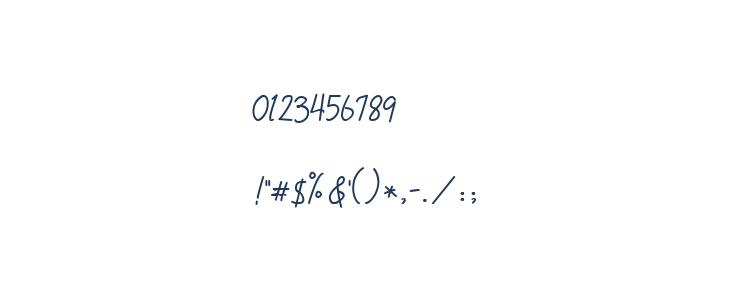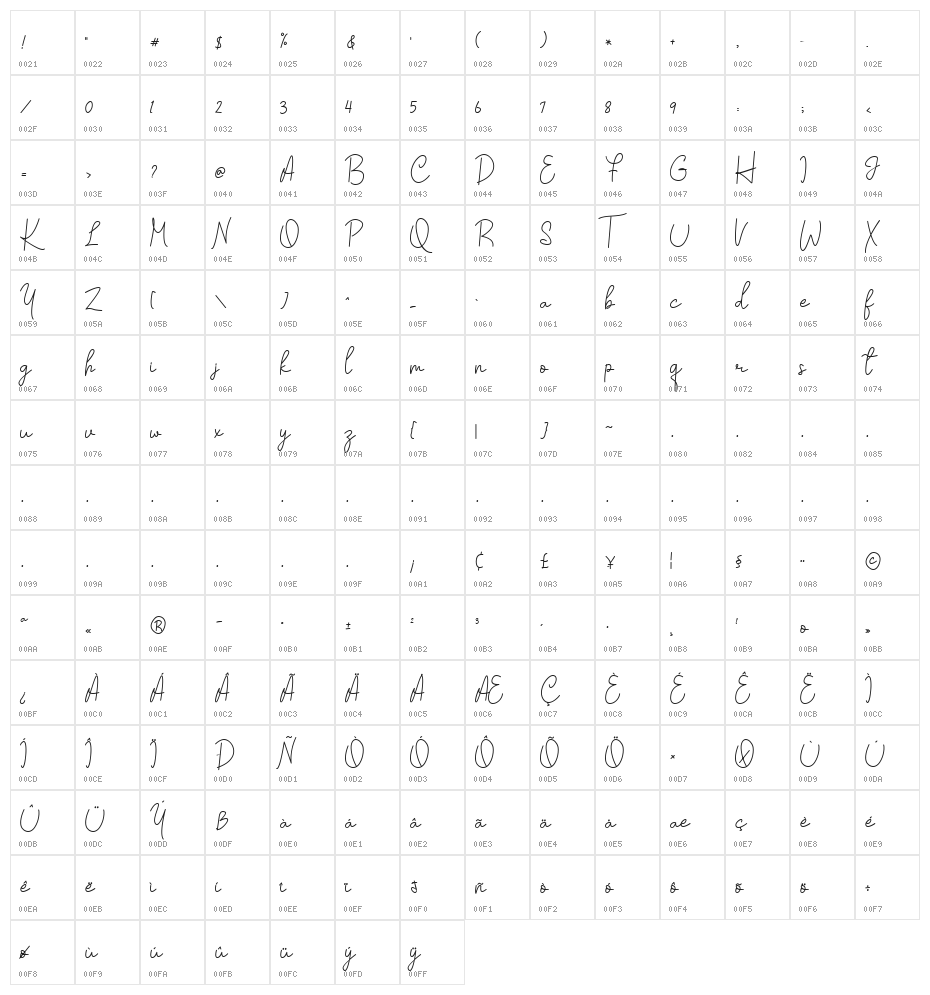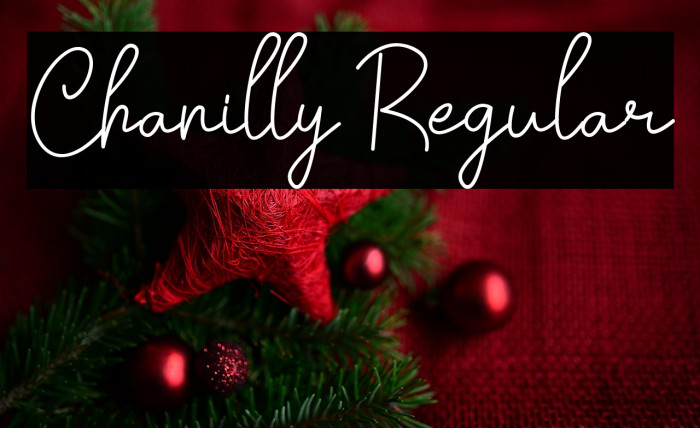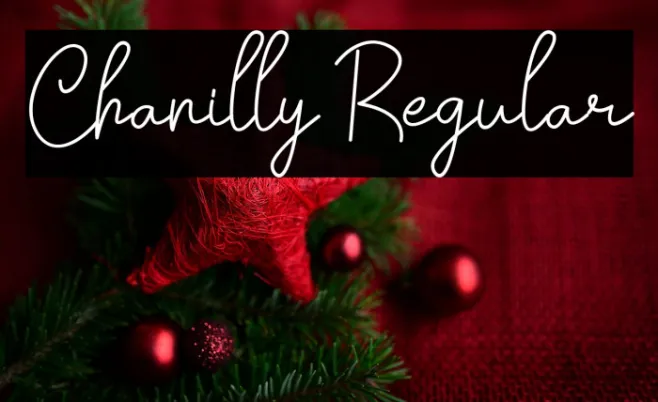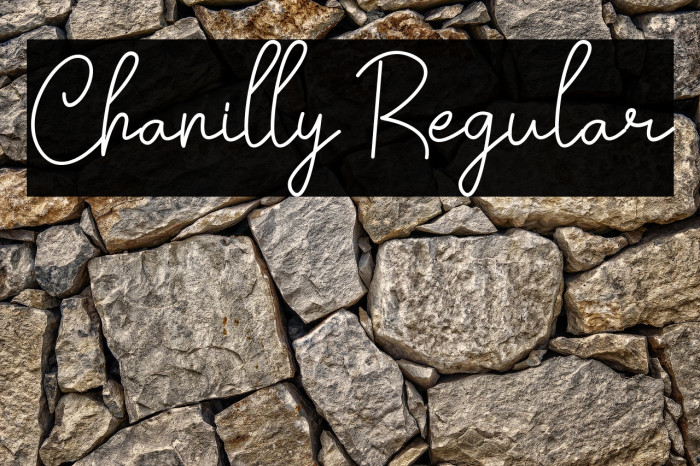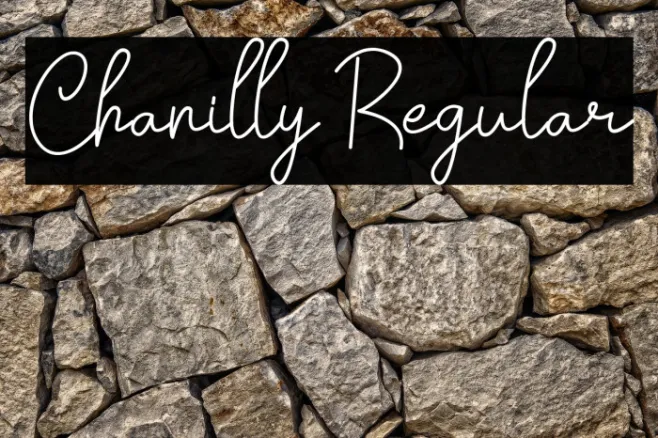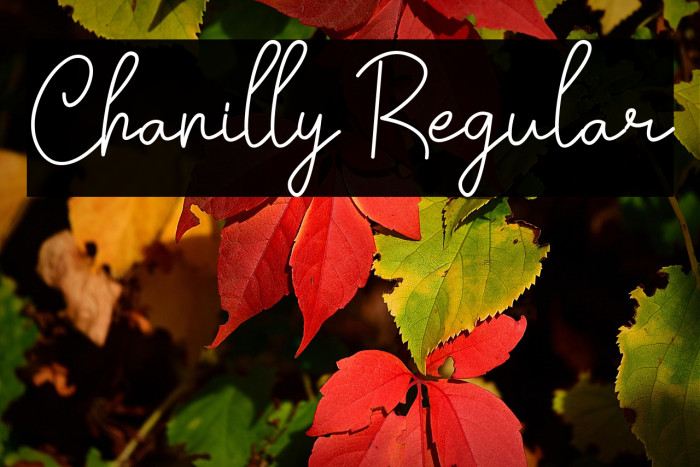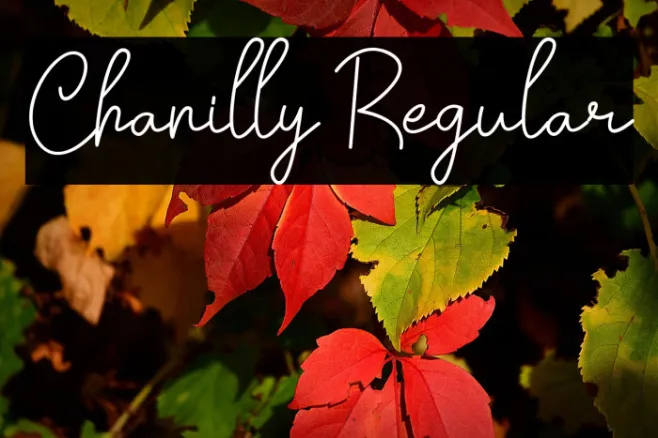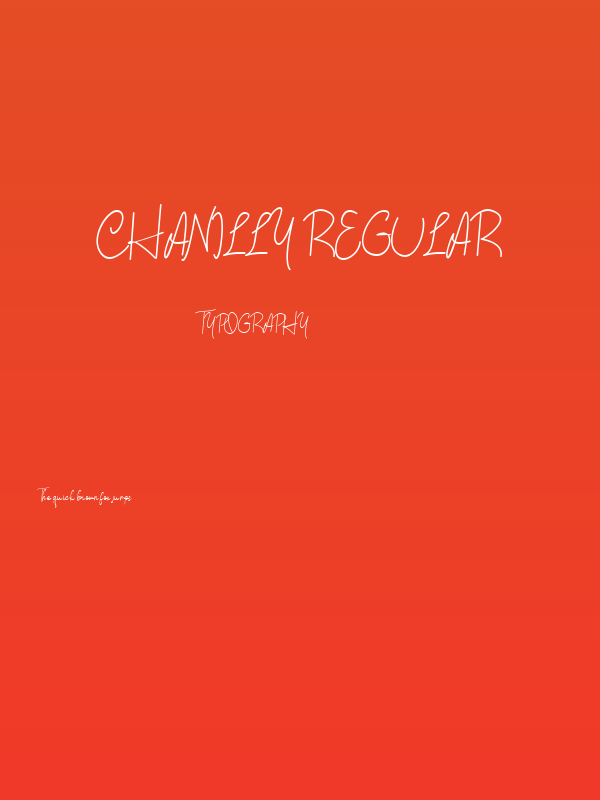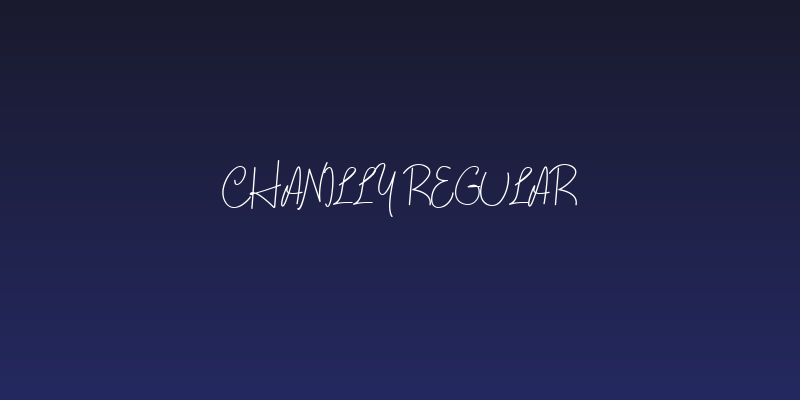
Chanilly Regular Font
Chanilly Regular Description
This font features an elegant and flowing script style, characterized by its smooth, cursive strokes and a handwritten appearance. The uppercase letters are tall and slightly narrow, with a graceful, looping design that adds a touch of sophistication. The lowercase letters maintain a consistent flow, enhancing the overall fluidity of the text. Numbers and special characters are designed to match the script's aesthetic, providing a cohesive look across all characters. The font's delicate lines and artistic flair make it suitable for projects that require a personal and stylish touch.
| Proposed Projects | Ideal for wedding invitations, greeting cards, branding, and personal stationery. |